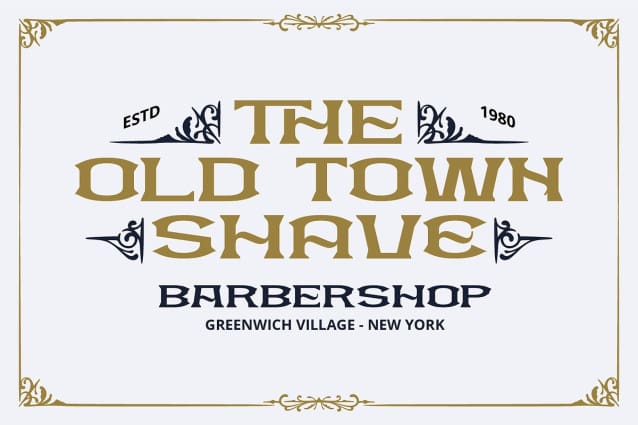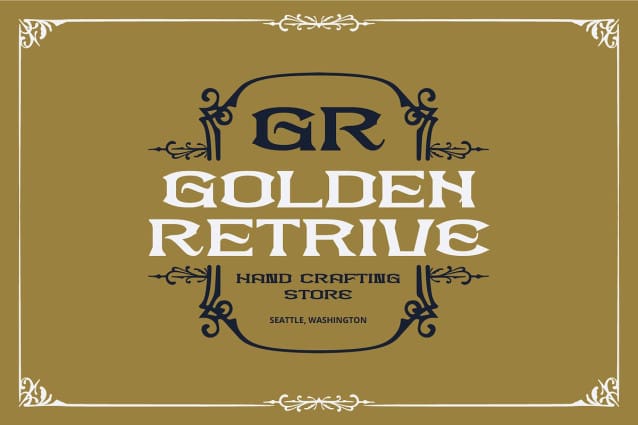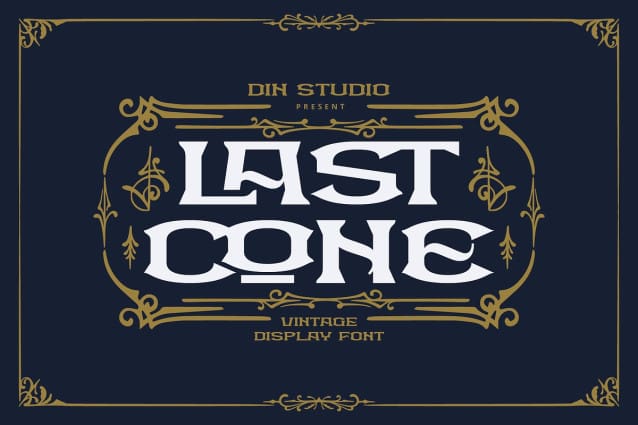
Lastcone Vintage Font
Lastcone Vintage Font a unique display font that combines vintage charm with modern design elements. Crafted in uppercases with a balanced weight that’s not too thick, Lastcone delivers a clean and consistent look. The distinctive pentagon-shaped letters, with soft corners, give the font a structured yet approachable feel. Lastcone offers a blend of elegance and boldness that captures attention without overpowering your design. This font gives ornament sets as extra.